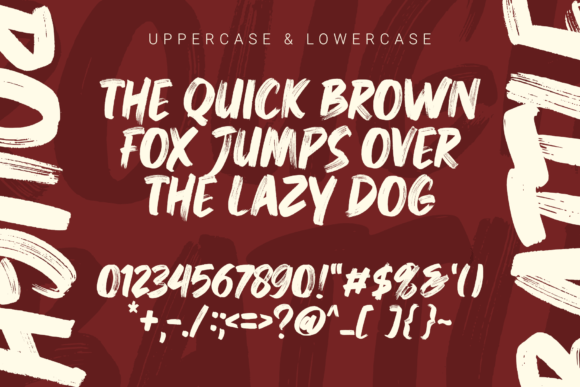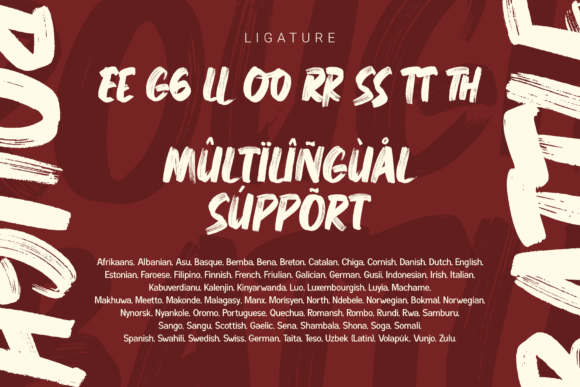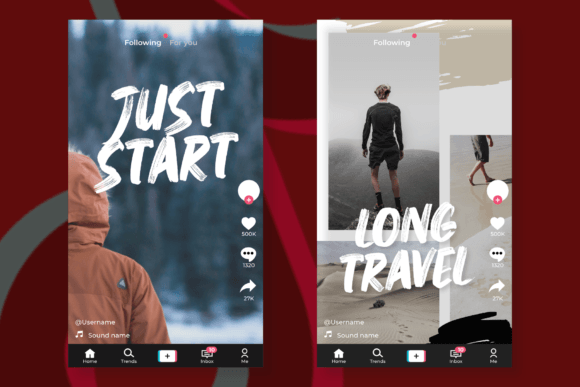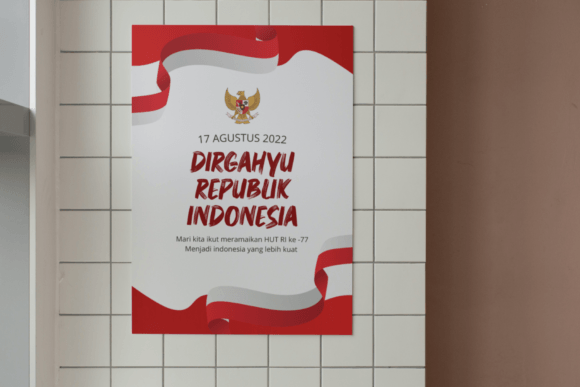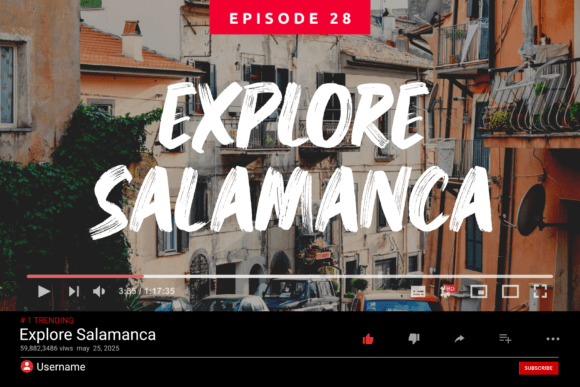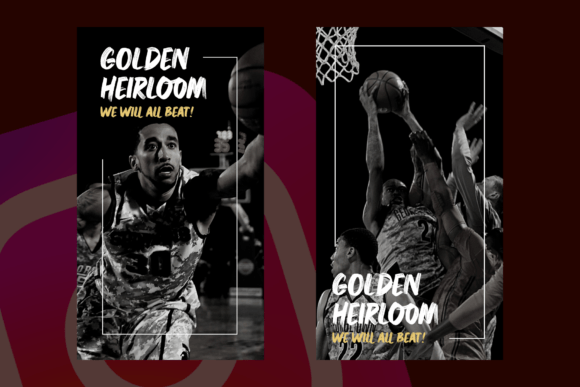
Introduction to Rough Battle Font
Have you ever stared at a blank canvas, searching for the perfect font to bring your creative project to life? I’m sure many designers can relate to that moment of frustration, but then it happens – you stumble upon a design resource that changes everything. For me, that resource was the Rough Battle Font, a stunning free download that added a modern and rustic touch to my latest design project.
The Rough Battle Font is more than just a font – it’s a game-changer for designers who want to add a unique and industrial feel to their work. With its rough brush style and transparent background, this font is perfect for branding and logos, posters, t-shirts, business cards, and any other creative project that requires a high-quality, eye-catching design.
As a designer, I can attest to the value of having a versatile and high-quality font like Rough Battle Font in your toolkit. Whether you’re working on a personal project or a client’s brief, this font is sure to impress and help you stand out from the crowd.
Key Features of Rough Battle Font
- Unique and edgy design style, perfect for creative projects and high-quality design resources.
- Perfect for use in graphic design, digital art, and other creative projects where a bold and rugged font is desired.
Honest Review: Rough Battle Font
I recently came across the Rough Battle Font, and I was intrigued by its edgy design. The font is a great addition to any creative project that requires a bold and rugged feel. It’s available for a free download, making it a fantastic design resource for those on a budget.
One of the things that stands out about the Rough Battle Font is its high-quality design. The font is well-crafted, with each character carefully detailed to create a cohesive look. The transparent background is also a nice touch, allowing you to easily customize the font to fit your design needs.
- Edgy and bold design that’s perfect for creative projects
- High-quality design that’s well-crafted and detailed
- May not be suitable for projects that require a more subtle or refined look
- Not as versatile as some other fonts, may not work well in all design contexts
Overall, I’m impressed with the Rough Battle Font. It’s a great addition to any design library, and its bold and rugged design makes it perfect for creative projects that require a bit of edge. While it may not be suitable for all design contexts, it’s definitely a great option to consider for those looking for a high-quality font with a unique look.
Rough Battle Font
For the best results, use the Rough Battle Font in conjunction with other design elements, such as distressed textures and grunge backgrounds. Experiment with different font sizes, colors, and effects to add depth and interest to your design.
The Rough Battle Font is perfect for use in action-packed designs, such as posters, flyers, and social media graphics. It’s also great for use in gaming-related projects, such as game titles and character design.
Does Rough Battle Font have a transparent background?
No, Rough Battle Font does not have a transparent background. It is a solid font with a unique, hand-drawn design. If you need a font with a transparent background, you may need to look for a different design resource.